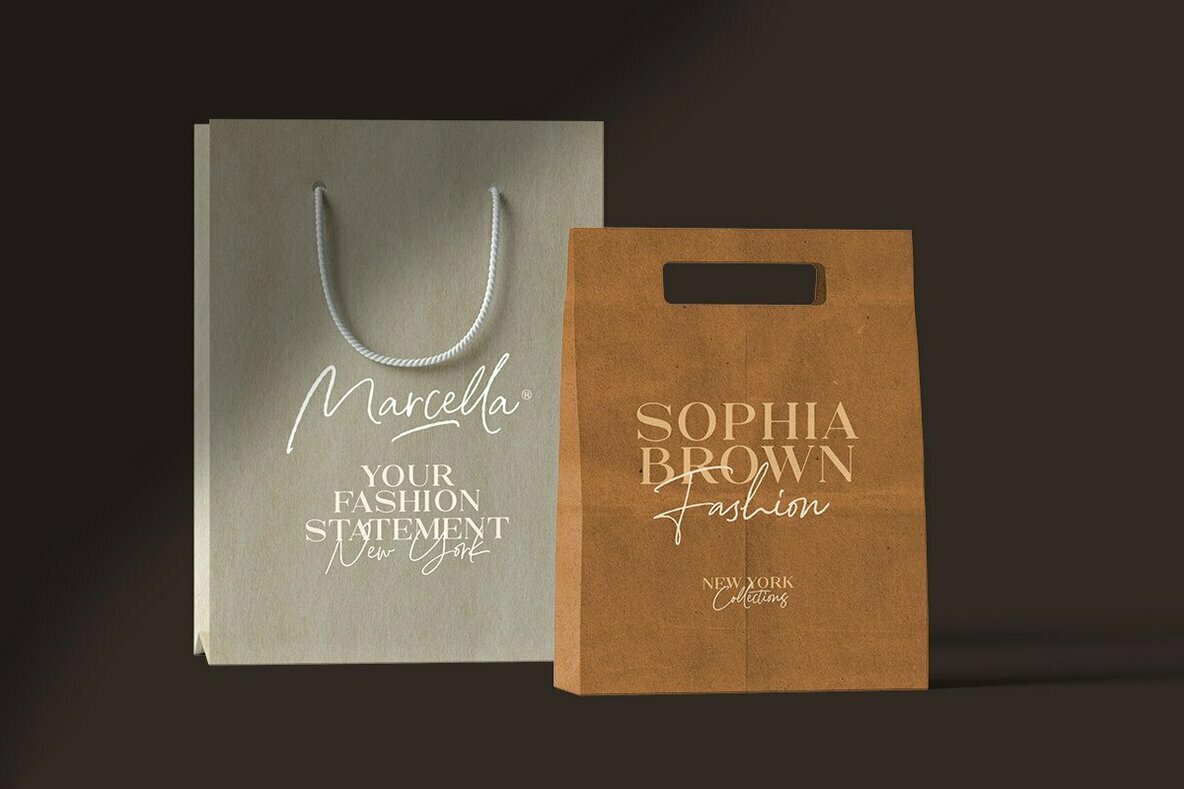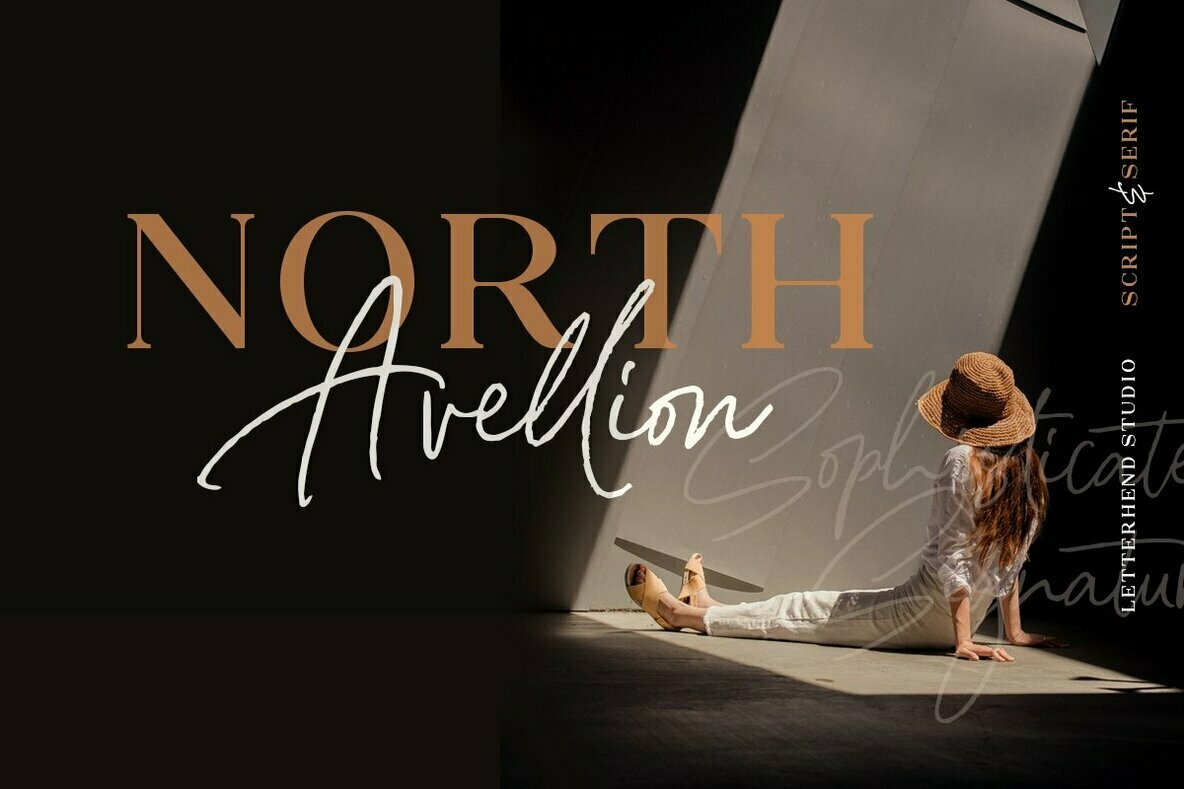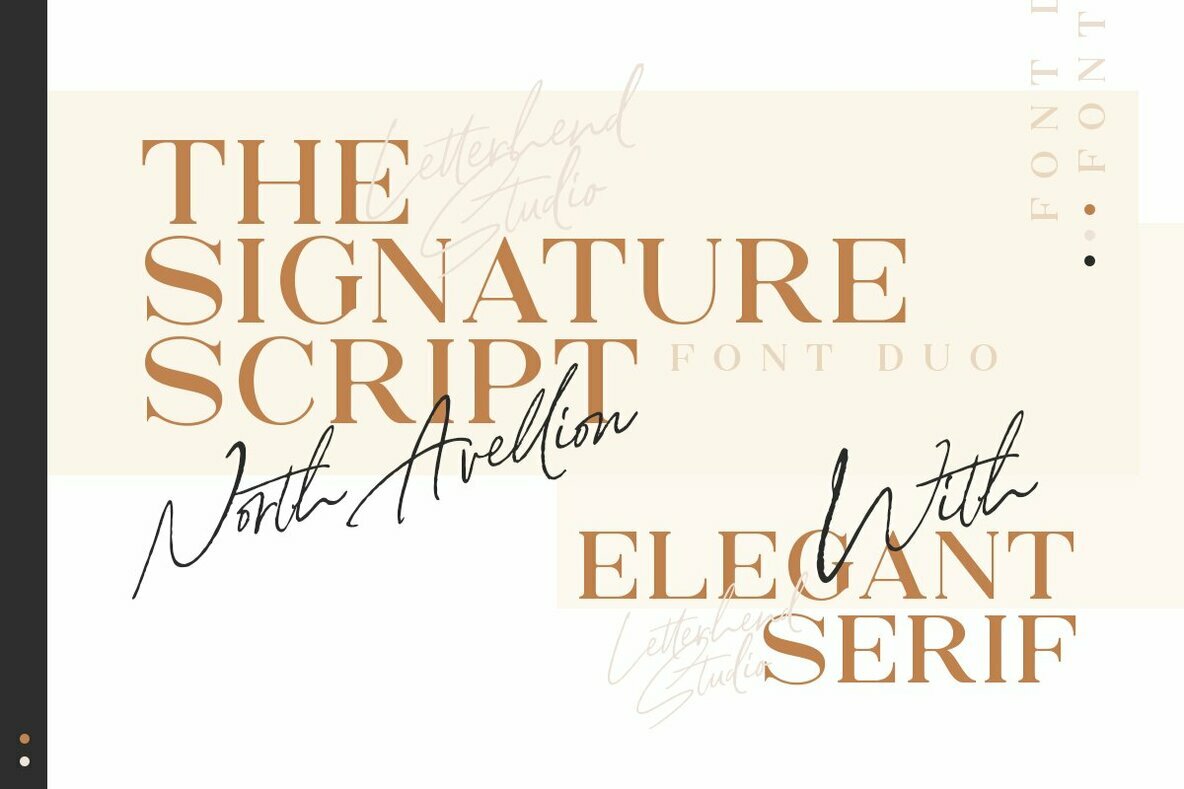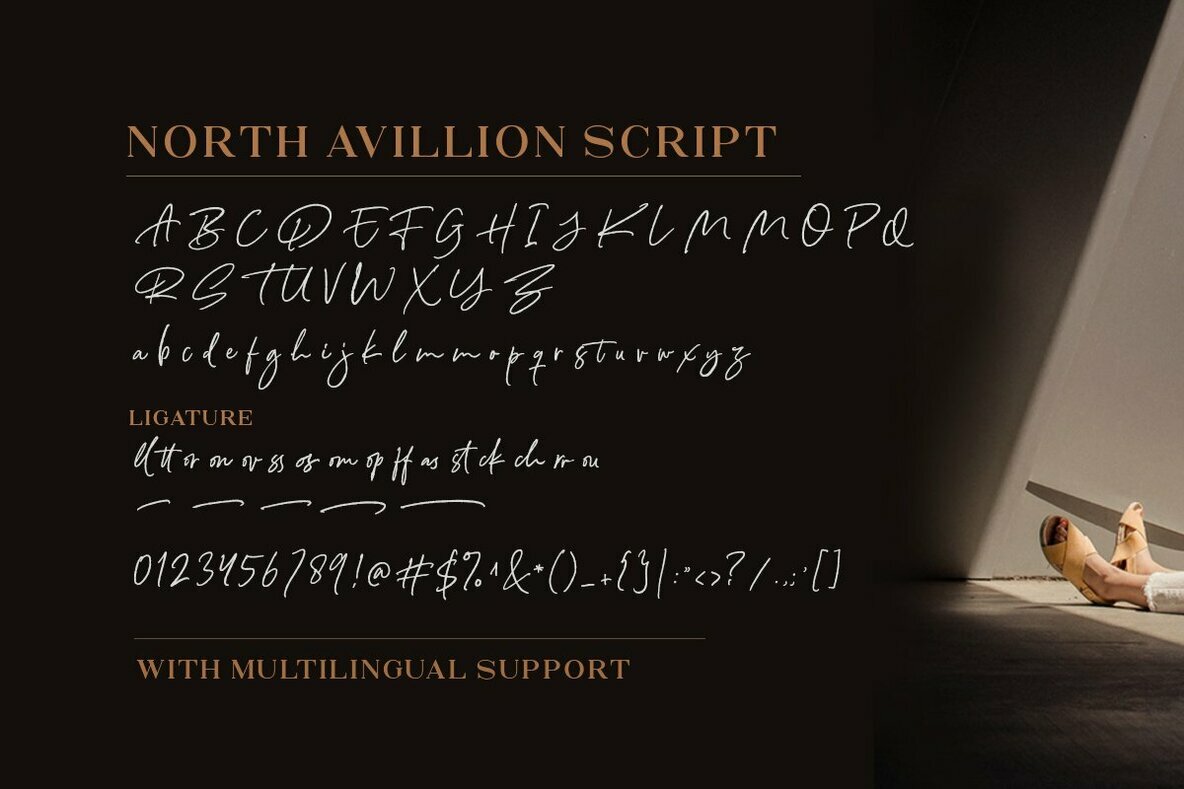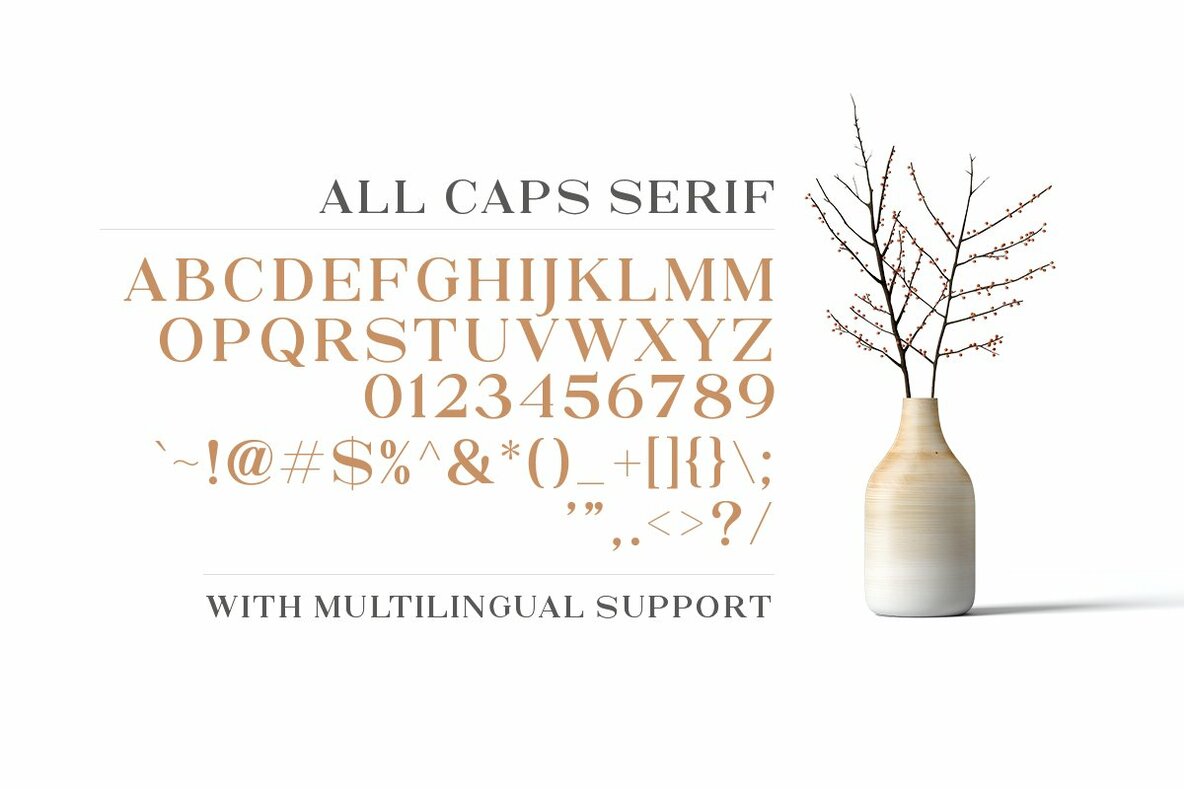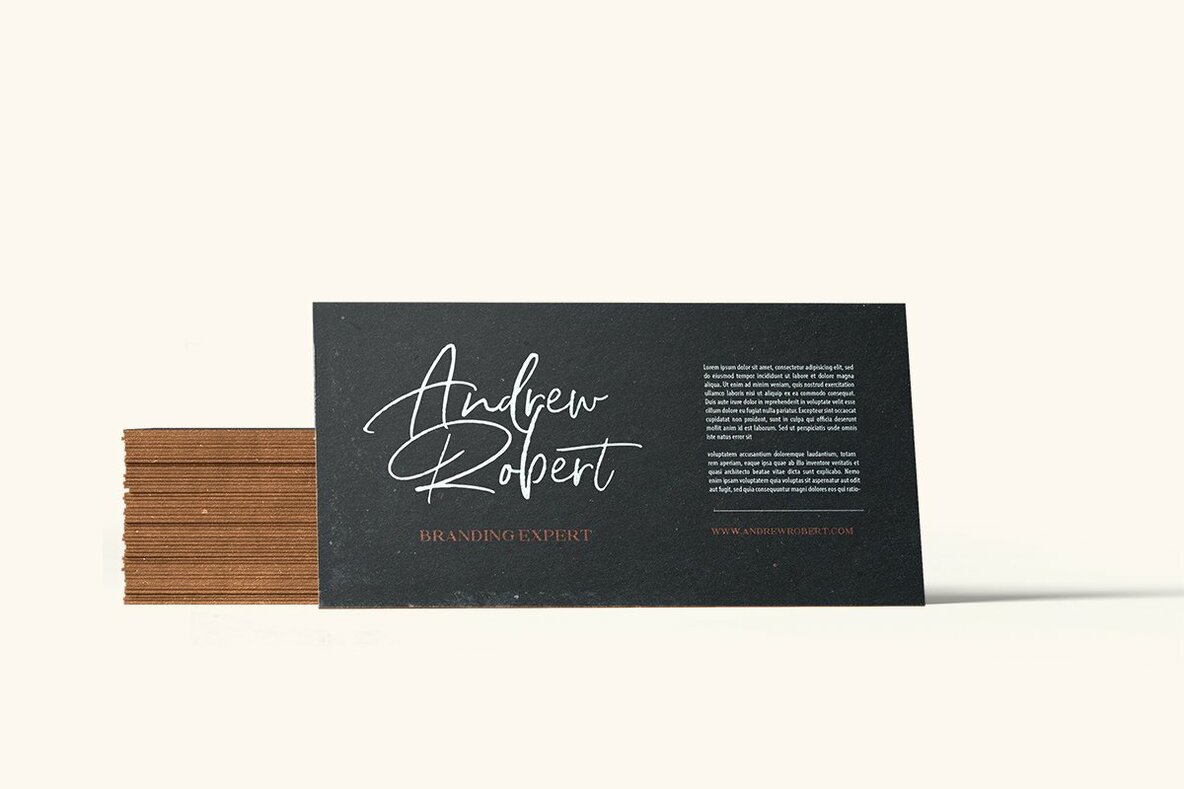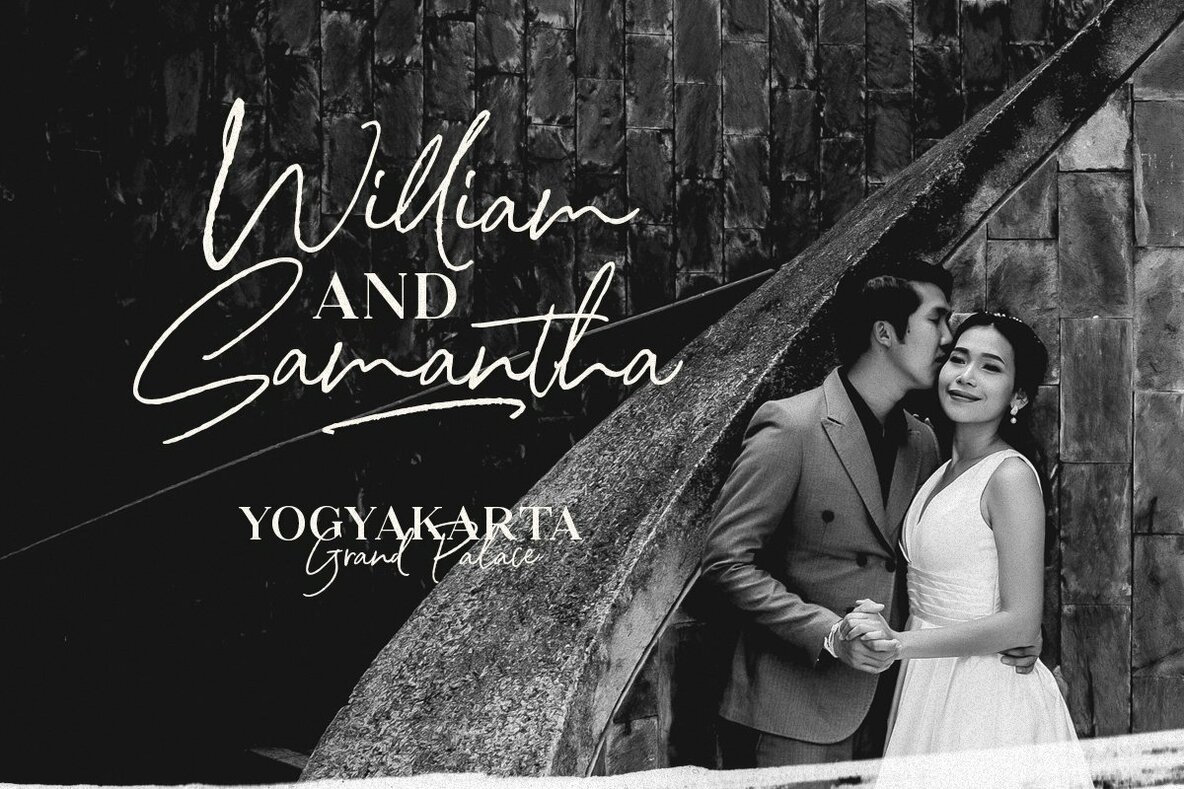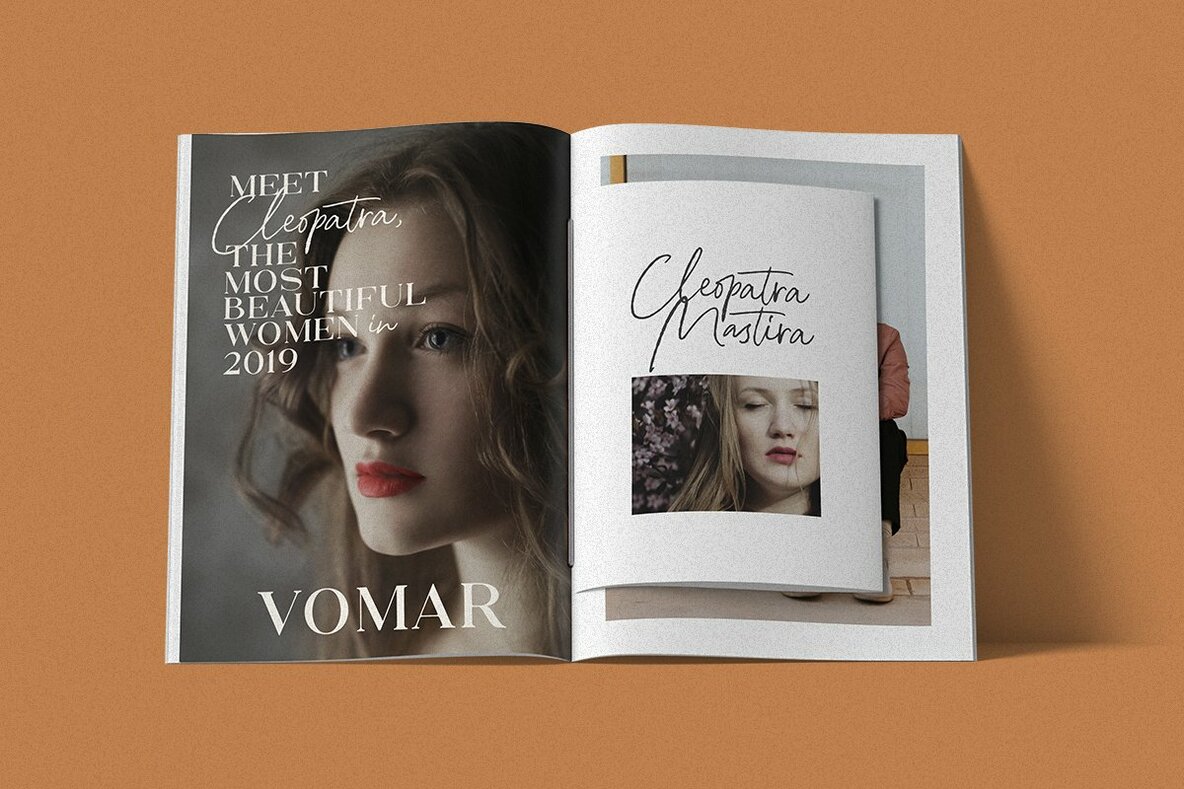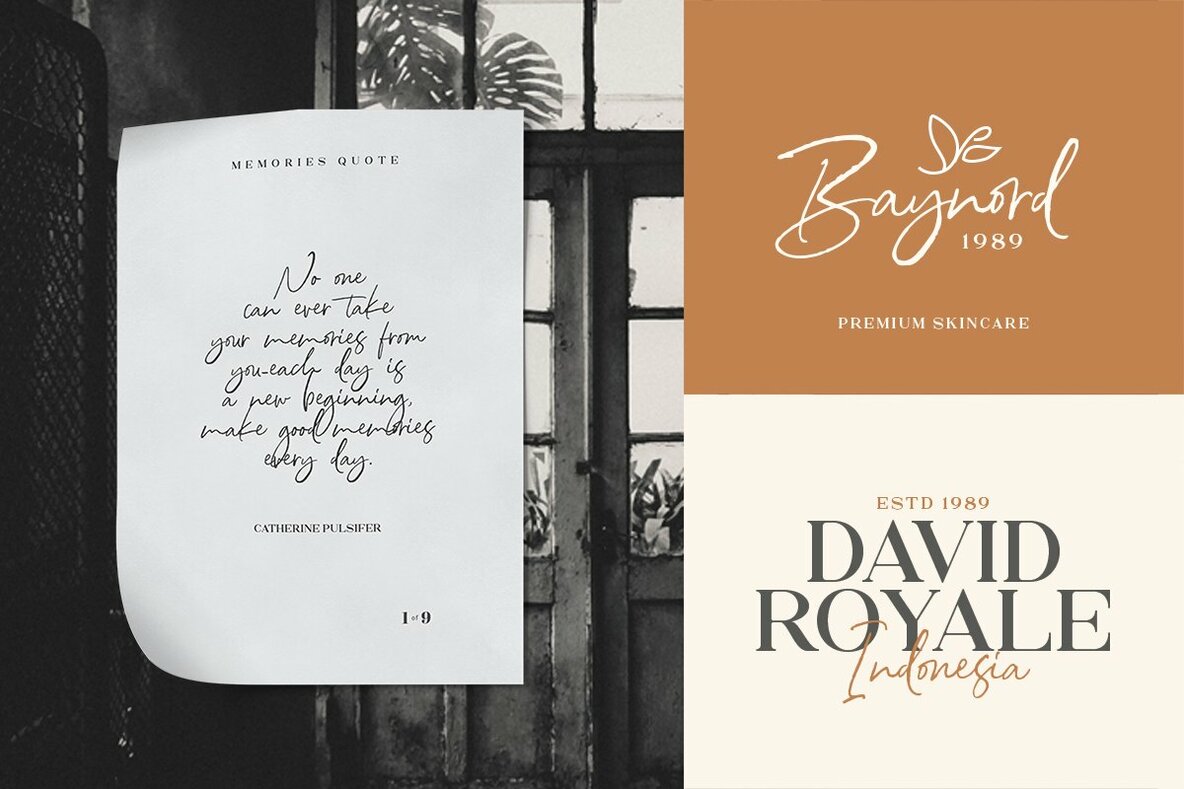
North Avellion Font
North Avellion. A perfect pair of serif and script! This typeface has classic style yet still looks great for modern design. They works perfect for you who needs a typeface for headline, logotype, apparel, invitation, branding, packaging, advertising etc.